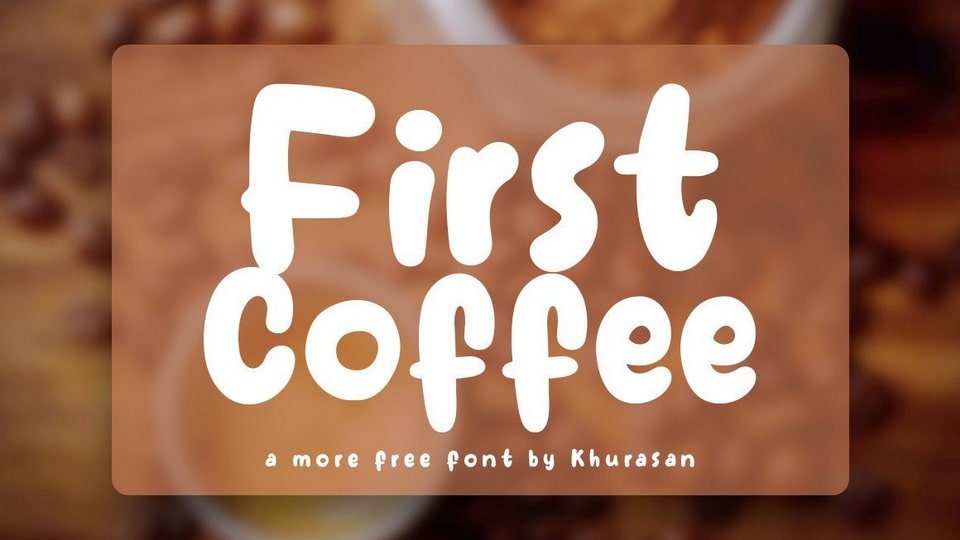
Download First Coffee font, a simple and organic handwritten typeface. First Coffee is perfect for posters, logos, magazines, book covers, banners, and many more.